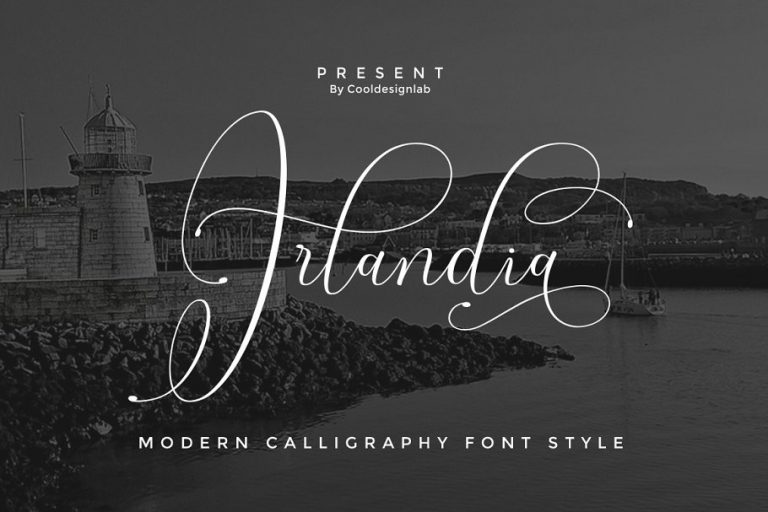
Irlandia Calligraphy Font
Hi Font Lover! Introducing Irlandia font. It so simple but has a very luxurious taste in it, this font has a lowercase alternative which is very similar to handwriting using a pen so it is suitable for signatures, logos, watermark photos, and many more. You can try it first by typing the name you want below. Irlandia Script Font designed and shared by cooldesignlab. Irlandia Script a modern, elegant line of calligraphy that makes this font perfect for your personal brand image and every great project, such as logos, invitations, stationery, wedding designs, social media posts, advertisements, product packaging, product design, labels, photography , watermarks, special events, and more!